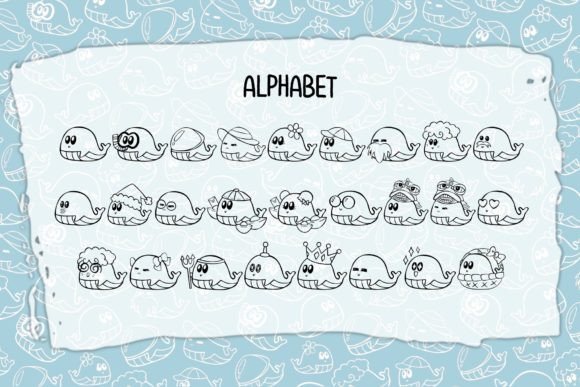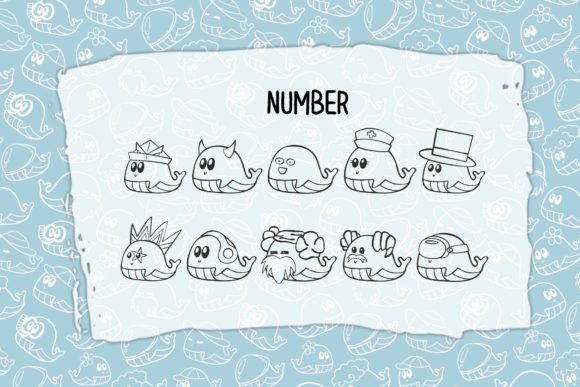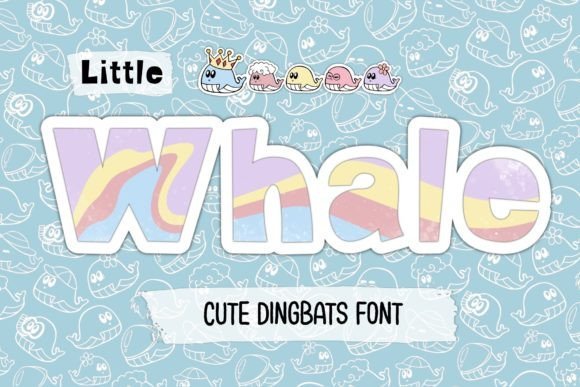
Introduction to Little Whale Font
Little Whale is a fun and whimsical dingbats font.
This font is the perfect fit for all of your logos, wall art, signs, cards, art prints, t-shirts, coloring pages, and much more .
Key Features of Little Whale Font
Why Choose Little Whale Font?